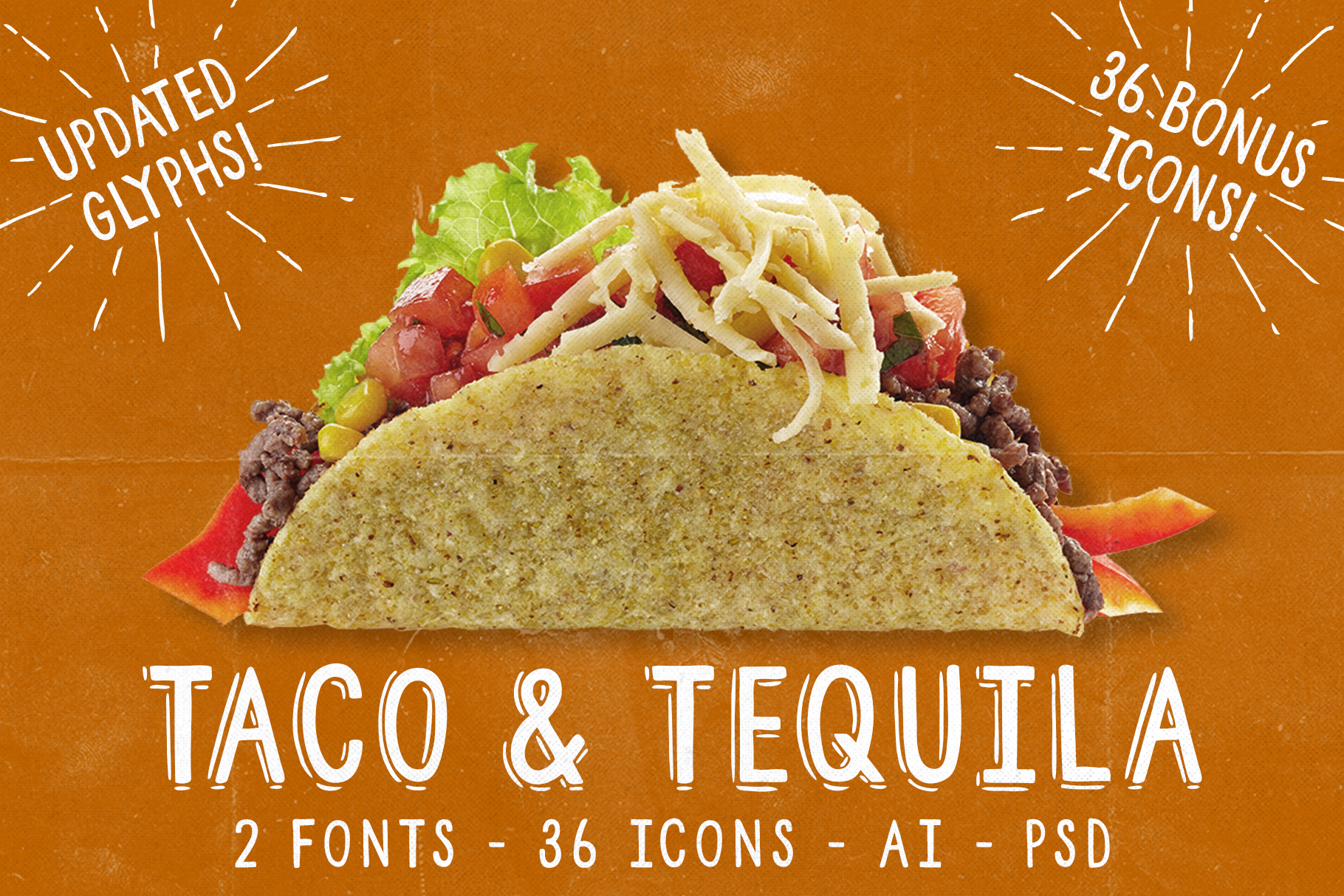
Taco and Tequila, 2 Fonts + Extras!
UPDATED - improved kerning and additional glyphs
CAUTION: Hot Font: Over-consumption may cause designs to spontaneously combust.
You get the idea. This font is packing heat. You know what I mean?
Neither do I. But I’ve chosen my theme and I’m sticking to it.
Mexican food has always been my hands-down favourite and it stuck by me when I got Glutarded. Yes, when bread, pasta and Ben and Jerry let me down, it was there for me, to offer up a gluten free taco and save me from starvation.
So this is my salute to gluten free Mexican... 2 Mexican-inspired fonts with hand-drawn icons that really capture the heart of Mexico, or at least what I have gathered is the heart of Mexico from Halloween costumes and Saturday morning cartoons.